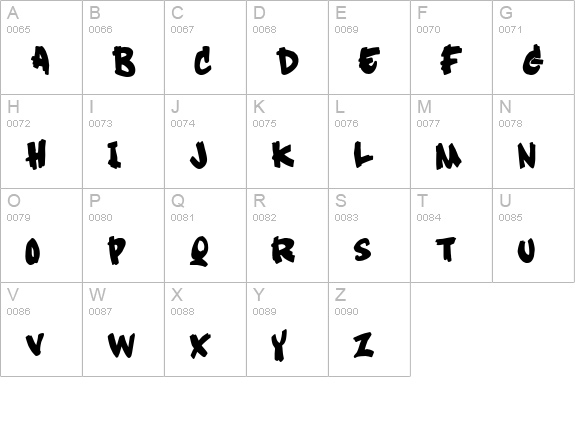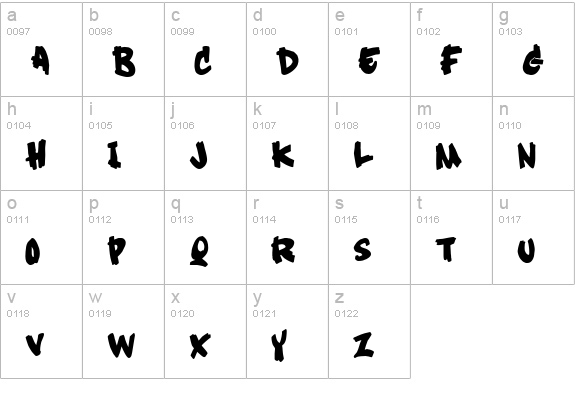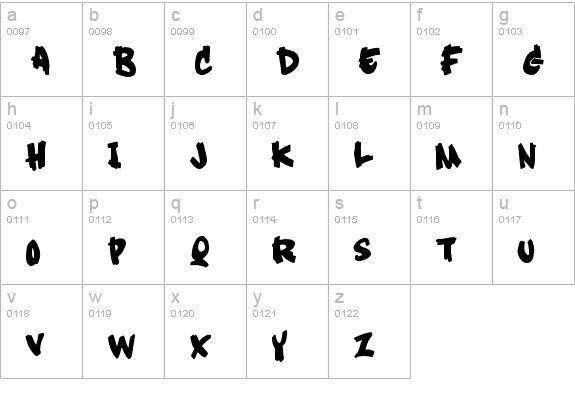
Soft Sugar is a delightful font that exudes a sense of sweetness and charm. Its soft, rounded edges give off a gentle and inviting vibe, making it perfect for adding a touch of warmth to any design project. This font is versatile and can be used for a variety of purposes, from branding to packaging to social media graphics. Soft Sugar's clean and legible characters make it easy to read, ensuring that your message is effectively conveyed to your audience. Whether you're creating a logo, designing a website, or crafting an eye-catching poster, Soft Sugar will effortlessly enhance your visual content. What sets Soft Sugar apart is that it is not only visually pleasing but also conveniently free. Yes, you heard it right! This font is freely available to download at FontsMarket.com. Now you can enjoy the beauty and elegance of Soft Sugar without any cost. It's a valuable resource for designers, entrepreneurs, and anyone looking to add a touch of sweetness to their projects. So, why wait? Embrace the charm of Soft Sugar and download it today from FontsMarket.com. Elevate your designs with this versatile and free font and let its gentle curves and soothing aesthetics captivate your audience.